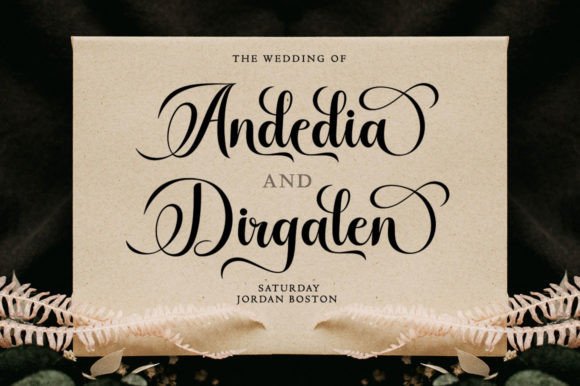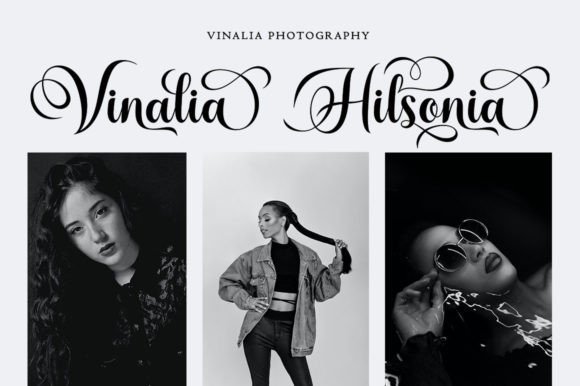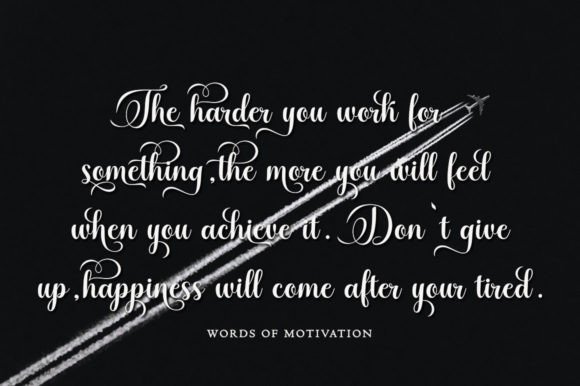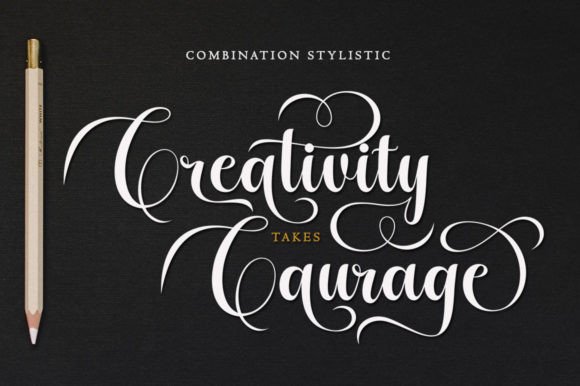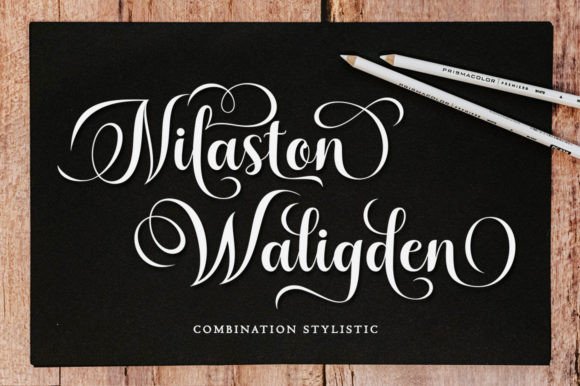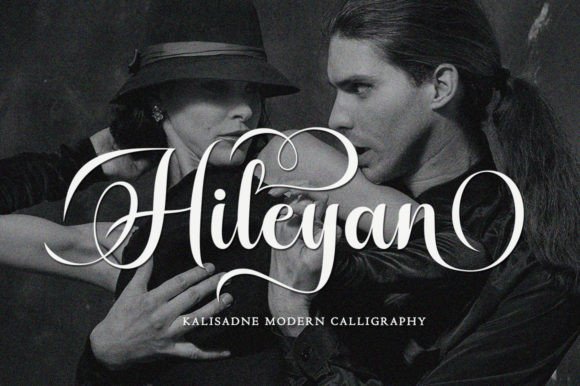
Introduction to Kalisadne Font
Have you ever been working on a creative project, pouring your heart and soul into every detail, only to feel like something is missing? That’s where the perfect font comes in – a game-changer that can elevate your design from ordinary to extraordinary. For designers, finding the right font can be a challenge, but with the introduction of the Kalisadne Font, that struggle is over.
This stunning script font is a must-have for any design library. With its intricate details and delicate curves, it’s sure to add a touch of elegance to any project. Whether you’re working on a logo, a brochure, or a social media graphic, the Kalisadne Font is a versatile and high-quality design resource that will make your creations stand out.
Key Features of Kalisadne Font
- High-quality design resource perfect for creative projects
- Transparent background allows for seamless integration into various design elements
- Unique characteristics include intricate details and ornate designs, making it ideal for artistic projects
Honest Review: Kalisadne Font
As a designer, I’m always on the lookout for high-quality design resources to elevate my creative projects. Recently, I stumbled upon the Kalisadne Font, and I must say it’s been a game-changer for me.
The Kalisadne Font is a beautifully crafted font that exudes elegance and sophistication. It’s perfect for designers who want to add a touch of luxury to their projects. I particularly love the fact that it comes with a transparent background, making it easy to use with any design element.
- Transparent background makes it easy to use with any design element
- Limited character set, which may not be suitable for longer texts
- No bold or italic variations available
Overall, I’m thoroughly impressed with the Kalisadne Font. It’s a great addition to any designer’s toolkit, and I highly recommend it for any creative project. With its high-quality design and transparent background, it’s a must-have for any designer looking to elevate their work.